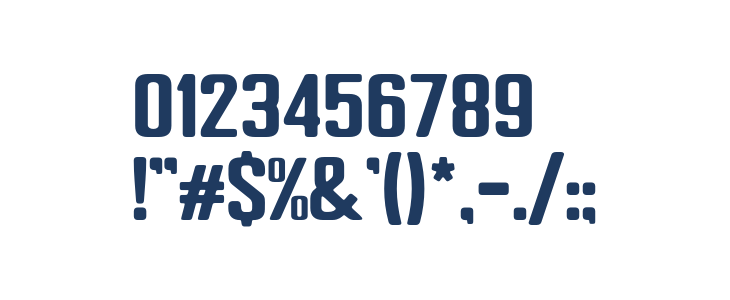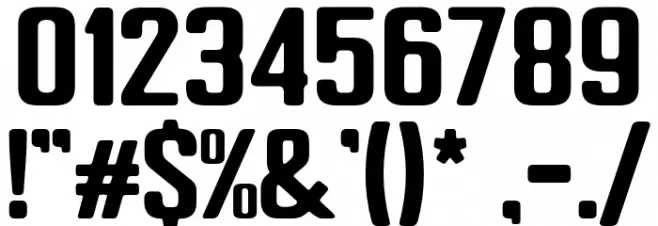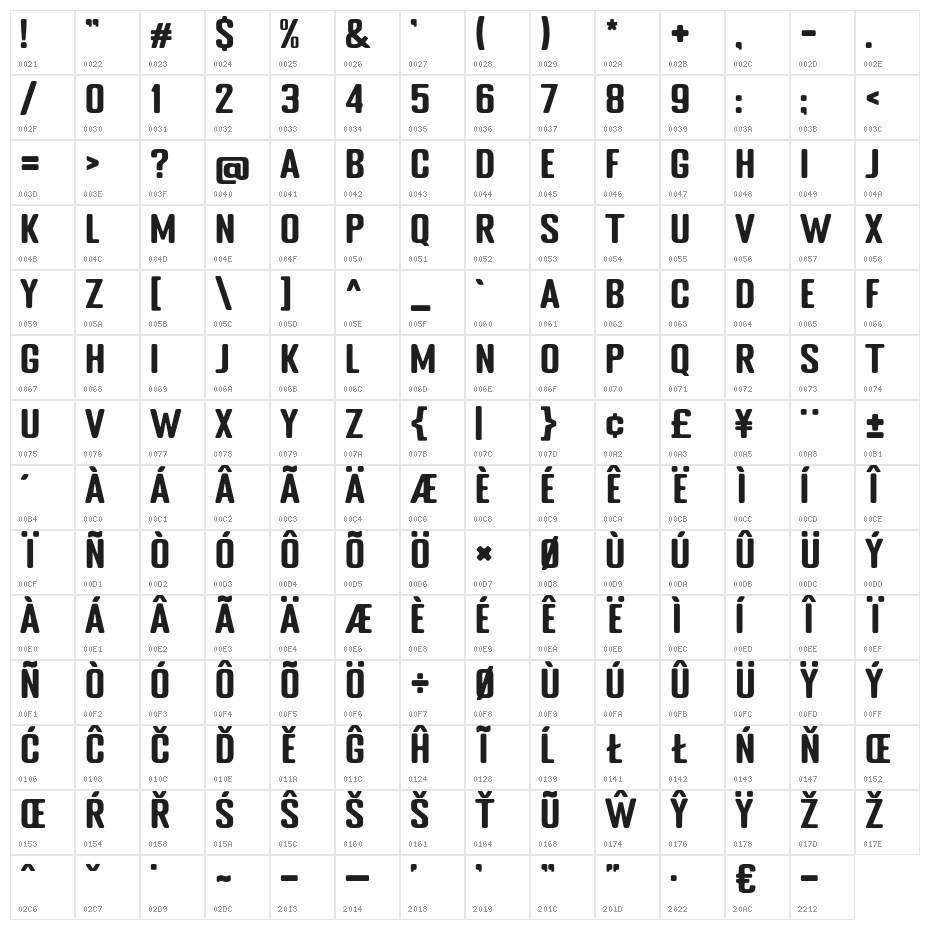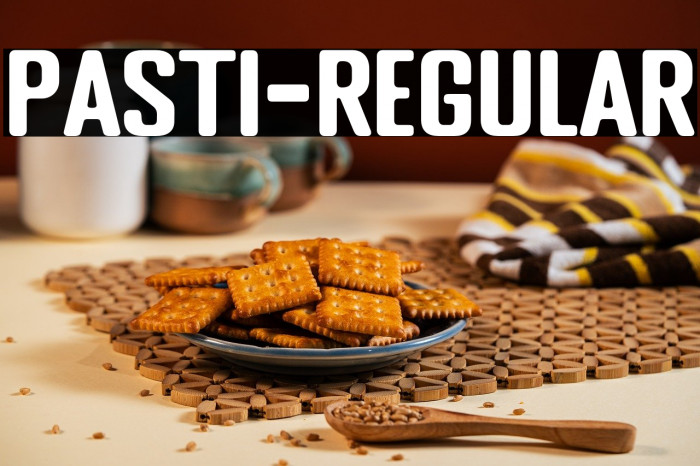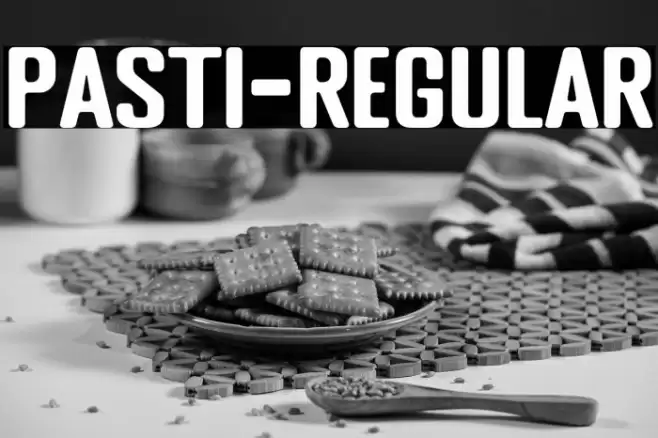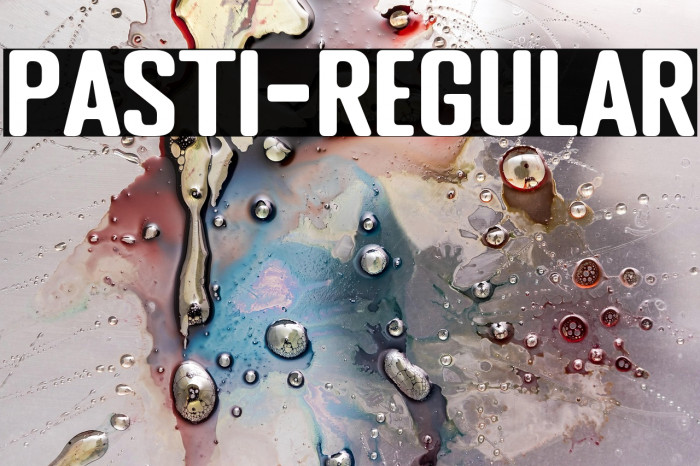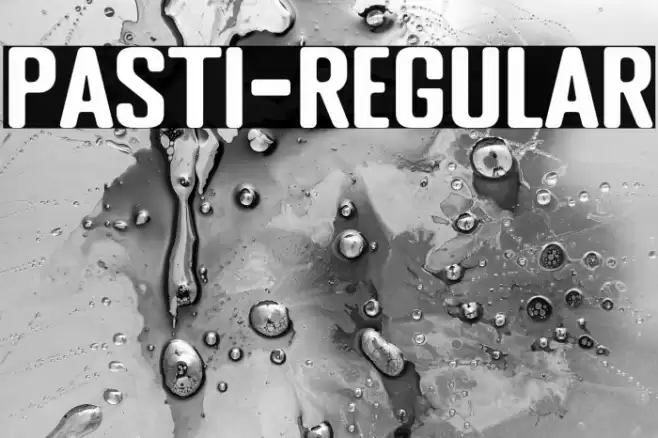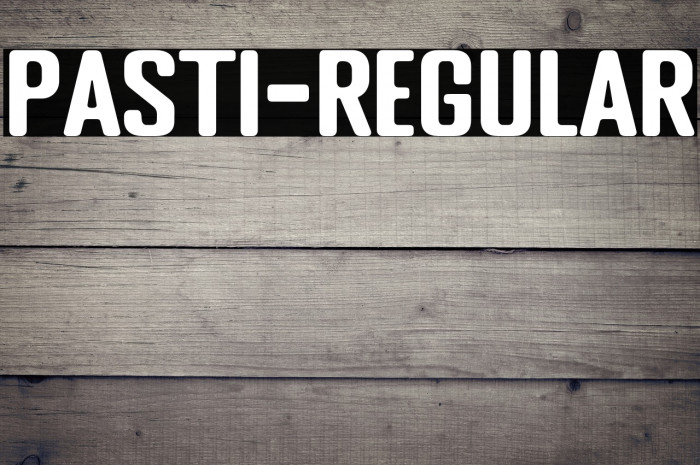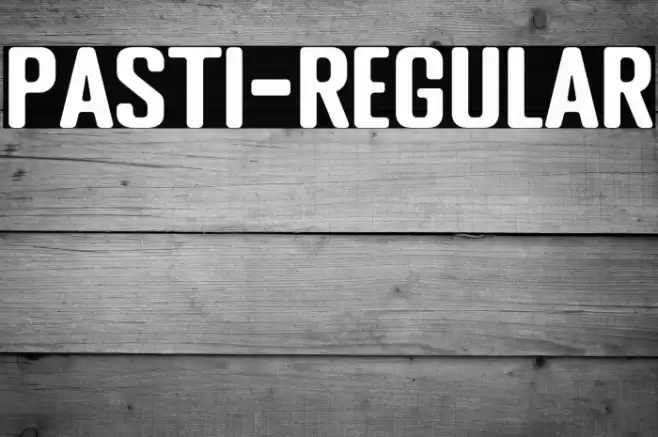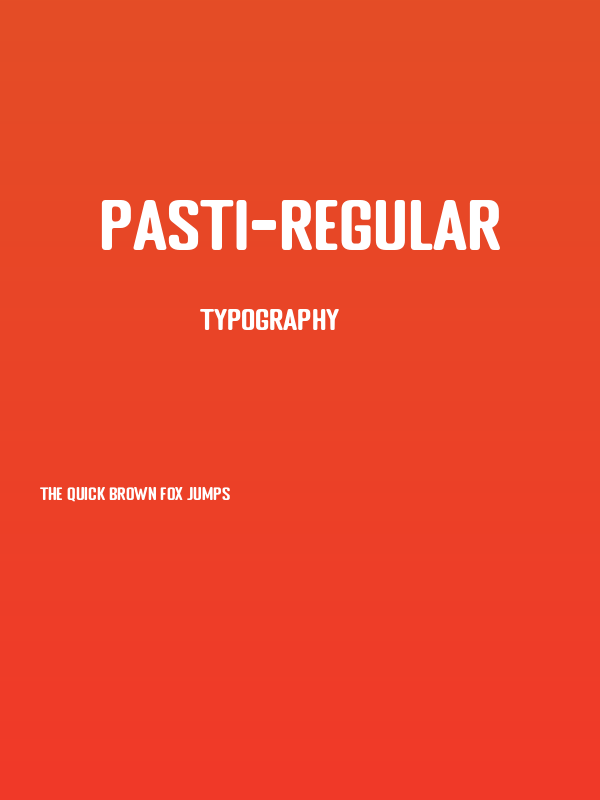
PASTI-Regular Font
PASTI-Regular Description
This font features bold, rounded characters with a strong presence, making it ideal for impactful designs. The uppercase letters are uniform in height, contributing to a cohesive and structured appearance. The numbers are equally bold, maintaining the font's robust style. Special characters are designed with the same attention to detail, ensuring consistency across all glyphs. The overall design is modern and clean, with a slight retro touch due to its rounded edges. This font is versatile, suitable for various applications where a strong, clear message is needed.
| Proposed Projects | Ideal for branding, posters, headlines, and any design requiring a strong visual impact. |